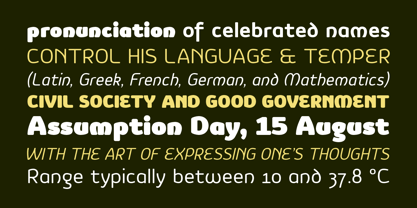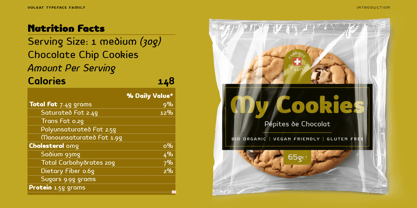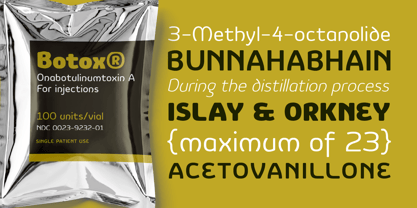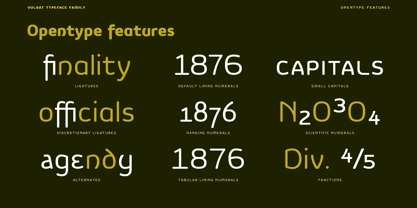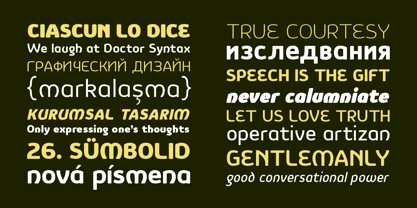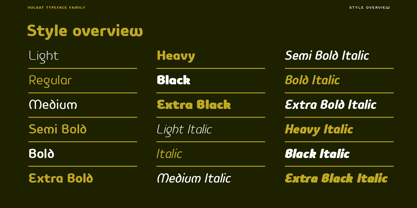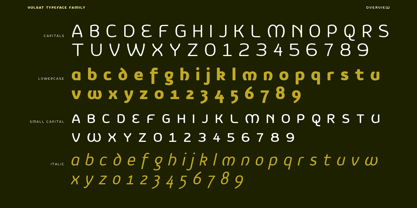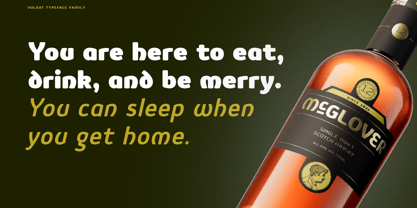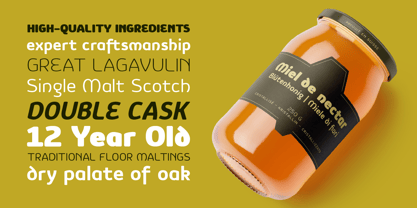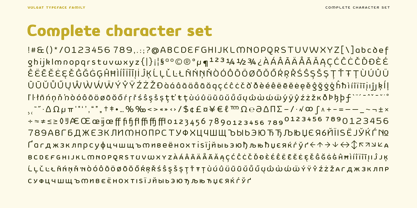
Vulgat
by Typogama
The Vulgat Font Family was designed by Michael Parson and published by Typogama. Vulgat contains 20 styles and family package options. More about this family
Vulgat is an uncial-inspired typeface that aims to blend the historical shapes of the past with a contemporary approach. With a soft, rounded stroke that conveys a warm and friendly tone, an open and clear form, it remains legible in smaller sizes while conveying a unique and distinctive style. Thanks to a large weight range of eighteen styles and an extended character set that covers most Latin and Cyrillic-based languages, it can adapt to any context and setting, whether in traditional print or digital.
Typogama is a digital foundry that features the typeface designs of Michael Parson. Launched in 2002, it has focused on creating unique and original designs that can be used either for display or text settings. Based in Geneva, Switzerland, Typogama aims to provide high quality designs that explore the possibilities of Opentype features while also providing a complete language support. Some of the typefaces equally offer Cyrillic or Greek support.